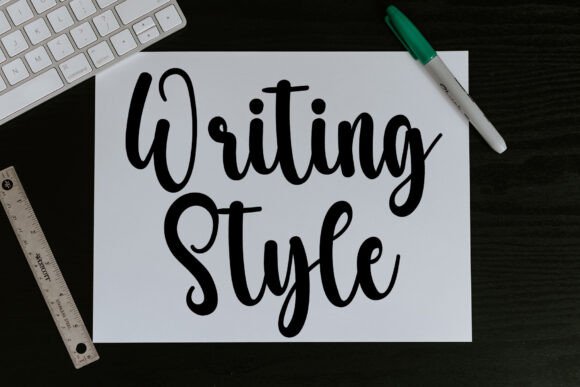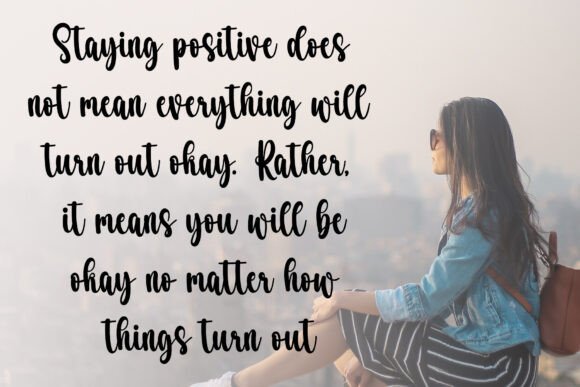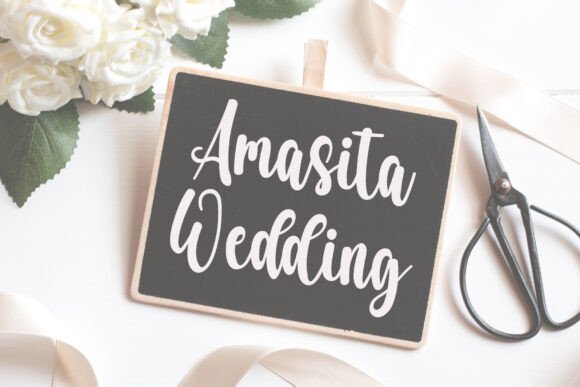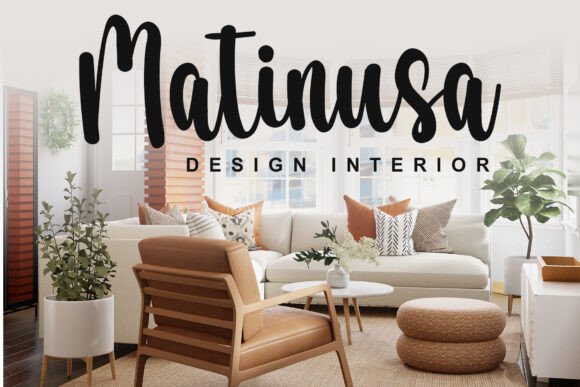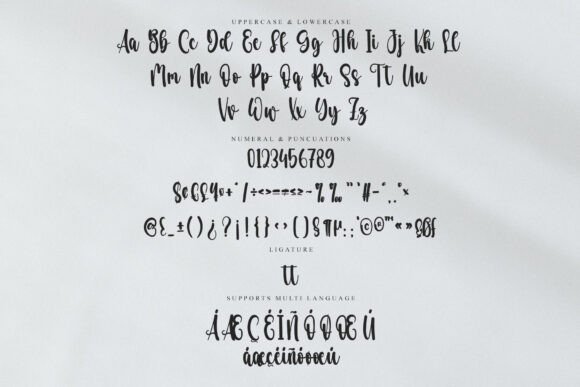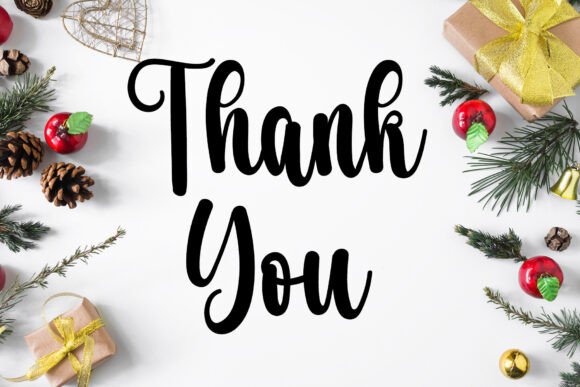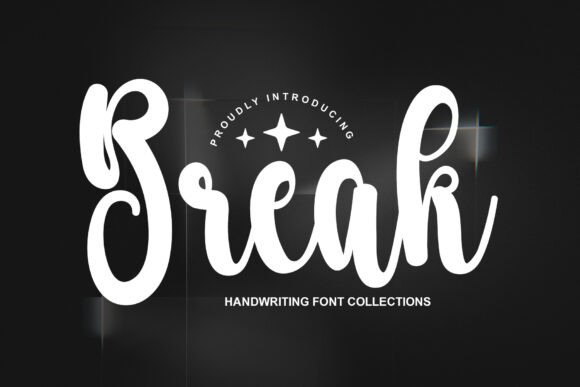
Introducing Break Font: The Ultimate Holiday Typeface
The holiday season is upon us, and what better way to get into the spirit than with a festive and merry typeface? Look no further than Break Font, a decorative font that captures the essence of the holiday season with its whimsical flair and enchanting charm. In this article, we’ll dive into the world of Break Font and explore how it can add a touch of magic to your designs.
What is Break Font?
Break Font is a carefully crafted typeface designed to evoke the joy and nostalgia of the holiday season. With its intricate details and ornate flourishes, this font is perfect for adding a touch of festivity to your designs. Whether you’re creating greeting cards, gift tags, or holiday-themed projects, Break Font is the ideal choice to bring a cheerful and nostalgic ambiance to your words.
Key Features of Break Font
• Decorative Elements: Break Font boasts an array of decorative elements, including snowflakes, holly leaves, and festive ornaments, which add a touch of whimsy to your designs.
• Whimsical Flair: The font’s playful and cursive style gives it a charming, handwritten feel that’s perfect for capturing the spirit of the holiday season.
• Enchanting Charm: Break Font’s unique blend of classic and modern elements creates a captivating visual experience that’s sure to delight your audience.
Break Font is specifically designed for holiday-themed projects, making it the perfect choice for:
• Greeting Cards: Add a personal touch to your holiday cards with Break Font’s festive and elegant style.
• Gift Tags: Create custom gift tags that exude a sense of nostalgia and cheer with Break Font’s whimsical flair.
• Holiday-Themed Projects: From party invitations to festive posters, Break Font is the ideal choice for any holiday-themed project.
Why Choose Break Font?
With so many fonts to choose from, why should you choose Break Font for your holiday projects? Here are just a few reasons:
• Unique Style: Break Font’s distinctive style sets it apart from other holiday fonts, ensuring your designs stand out from the crowd.
• Ease of Use: Break Font is easy to use and pairs well with a variety of other fonts, making it simple to incorporate into your designs.
• High-Quality Design: Break Font is meticulously crafted to ensure high-quality results, making it perfect for both personal and commercial projects.
Tips for Using Break Font
To get the most out of Break Font, here are a few tips to keep in mind:
• Experiment with Sizes: Break Font looks great in a variety of sizes, so don’t be afraid to experiment to find the perfect fit for your project.
• Pair with Other Fonts: Break Font pairs well with a range of other fonts, so try combining it with different styles to create a unique look.
• Use Decorative Elements: Take advantage of Break Font’s decorative elements to add an extra touch of festivity to your designs.